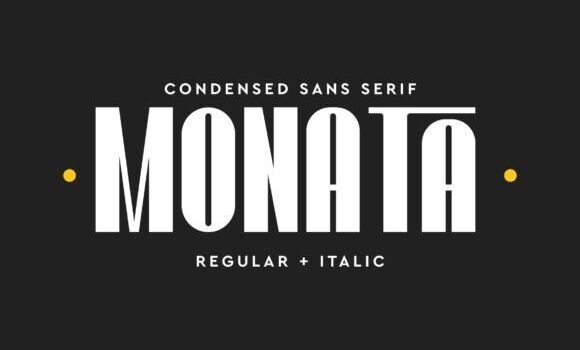
monata
Monata Font – Free Download Introduction to Monata Font Monata is a clean and confident sans serif font that blends modern aesthetics with versatile functionality. 📸 Preview Gallery 6 images 📌 Product Name Monata Font 👤 Author Artiveko 📂 Category